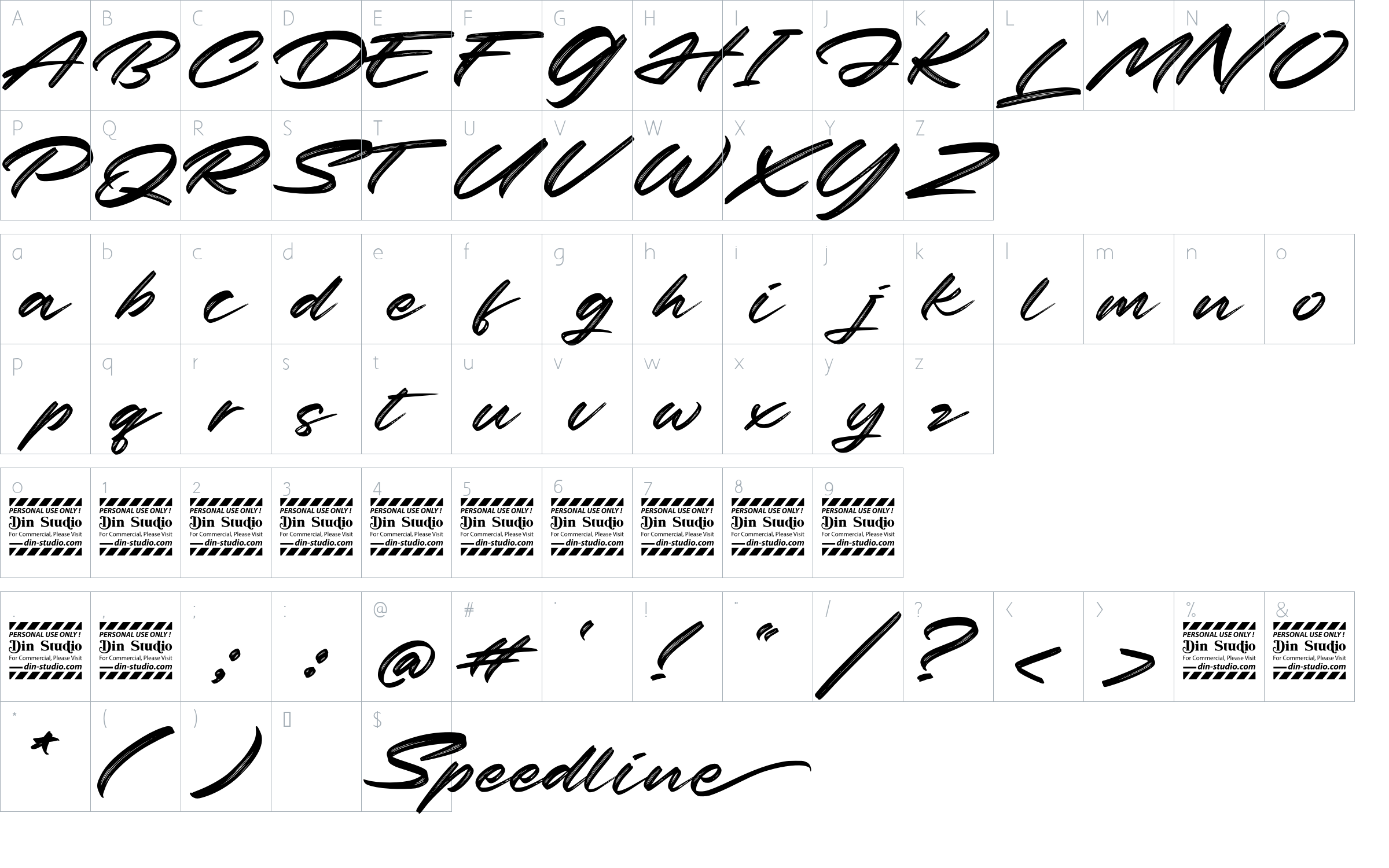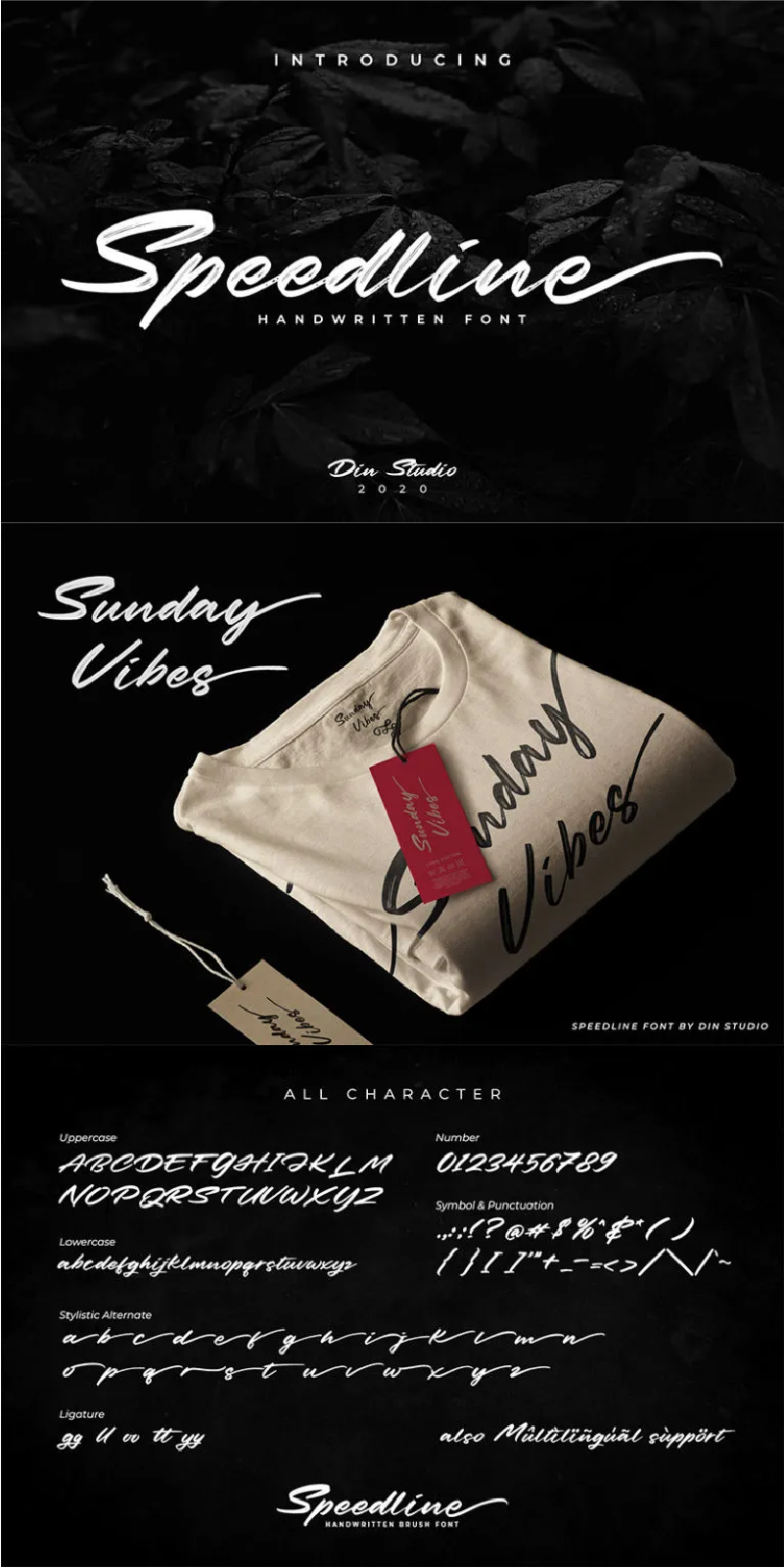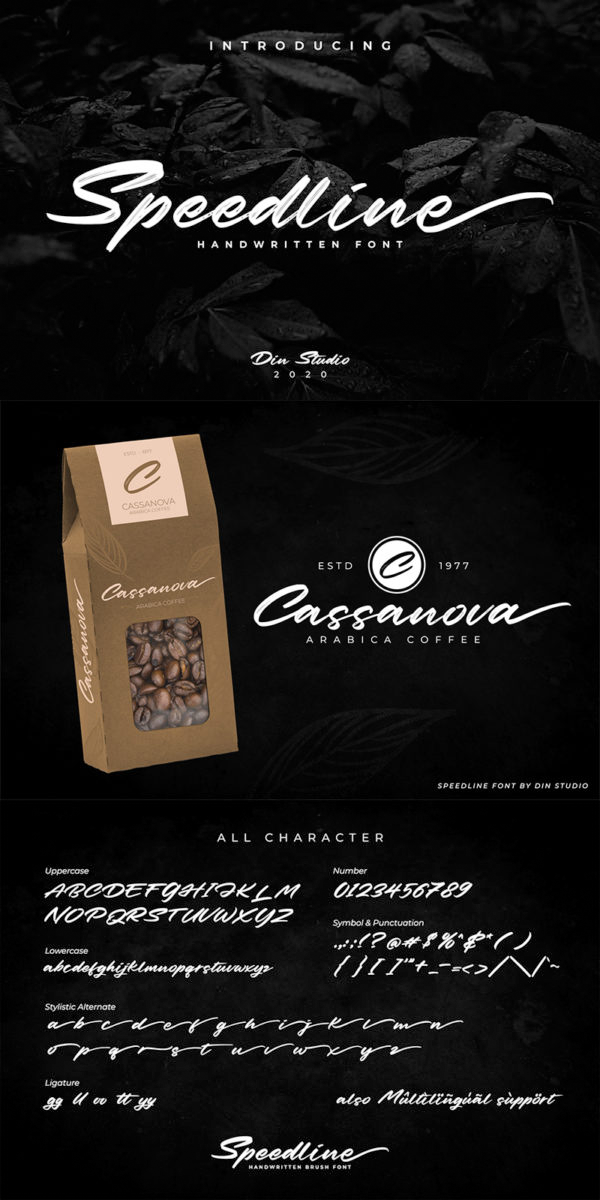
Speedline Font
About Speedline
Speedline – A Classy Brush Font. The brush combined with handwritten font will make your design project more beautiful. Made for any professional project branding. It is the best for logos, branding and quotes. Every letter has a unique and beautiful touch. See the previews above to get some inspiration on how you can use them. Happy Designing!